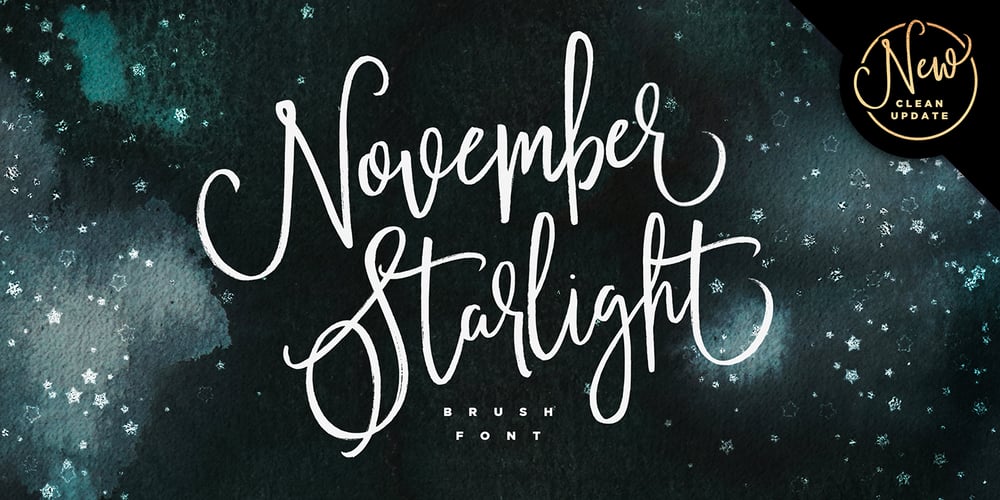
November Starlight Font Family was designed by Sam Parrett and published by Set Sail Studios. November Starlight contains 4 styles and family package options. Thanks for checking out November Starlight! A lovingly hand-painted script font, fantastically elegant & eccentric with a sprinkle of carefree fun. November Starlight doesn’t play by the rules – with extra bouncy characters, long vertical brush strokes and authentic hand-painted edges, it’s bound to make a bold statement on anything from greeting cards and invitations, to personalised logos and handwritten quotes. November Starlight consists of 4 fonts; November Starlight • A cursive font containing upper & lowercase characters, numerals and a large range of punctuation. November Starlight Alt • This is a second version of November Starlight, with a completely new set of lowercase characters. If you wanted to avoid letters looking the same each time to recreate a custom-made style, or try a different word shape, simply switch to this font for an additional layout option. November Starlight Clean & Clean Alt • Totally clean versions of each of the November Starlight fonts, with all rough brush textures removed. Perfect for specialised printing techniques such as laser & vinyl cutting, or simply for a silky smooth finish to your text. Special Characters are also available for several lowercase letters, with added beginning & end swashes – please see the character map image for a full list. These characters are accessible via software with a glyphs panel, e.g. Photoshop CC, Adobe Illustrator.